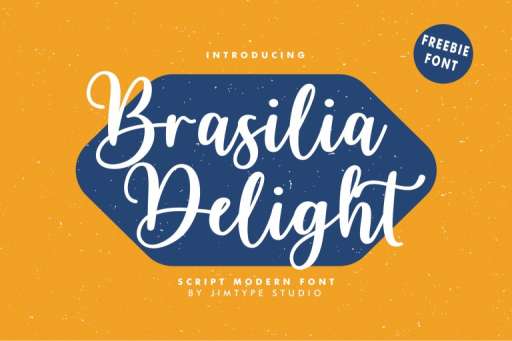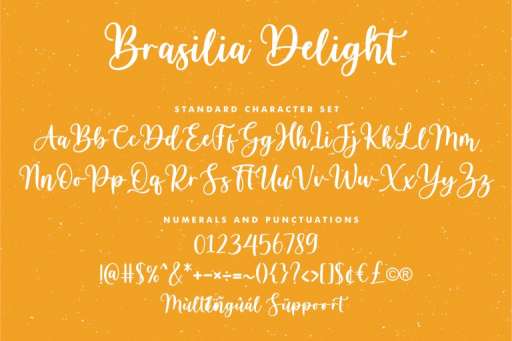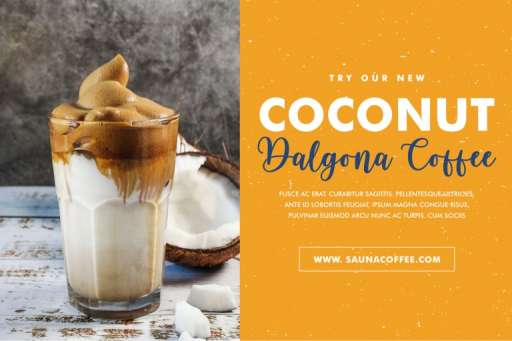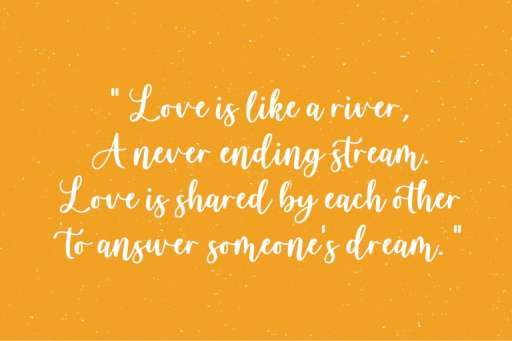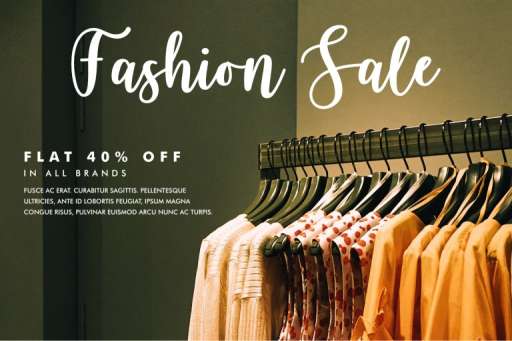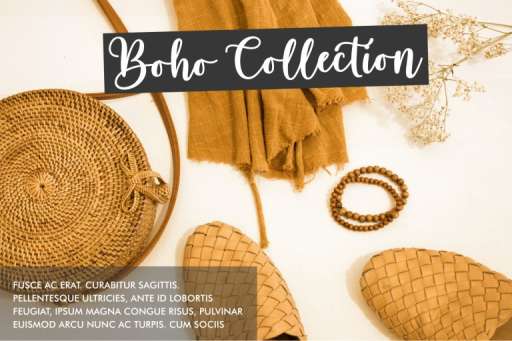
Brasilia Delight Font
Brasilia Delight – Script Modern Font
Introducing ‘Brasilia Delight,’ a captivating Script Modern Font designed to elevate your creative endeavors! This free-for-commercial-use font exudes elegance and charm, making it perfect for branding, advertising, merchandise, and beyond. With its flowing curves and modern touch, ‘Brasilia Delight‘ adds a delightful flair to any project. Embrace the freedom of commercial use and infuse your designs with the enchanting allure of this exquisite font.